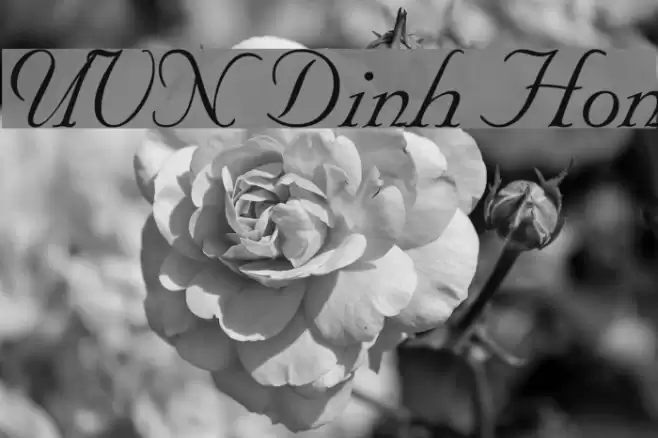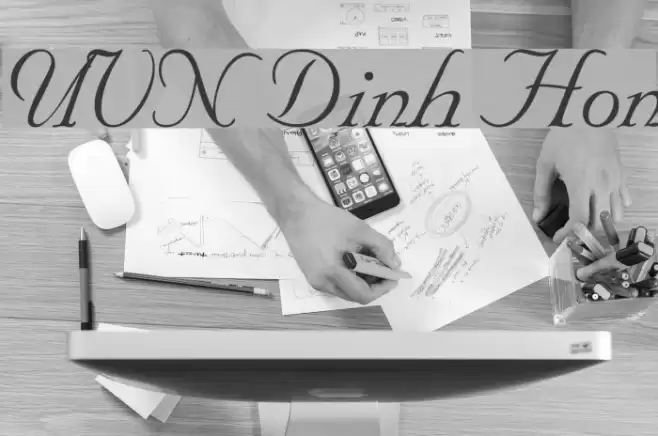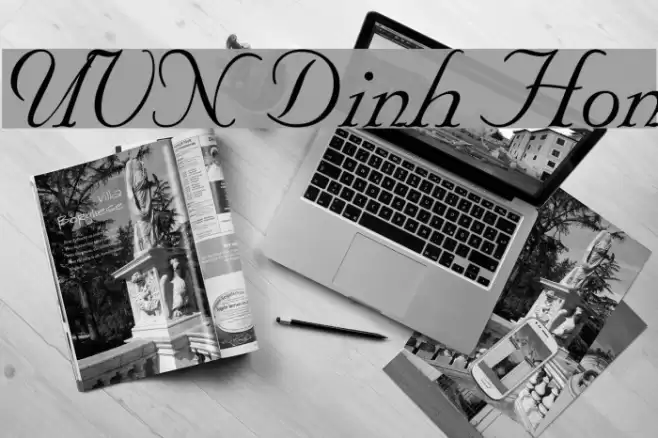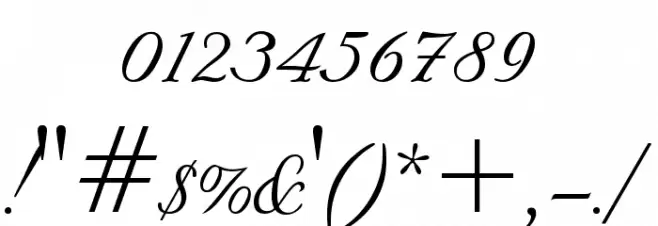
UVN Dinh Hon Font
UVN Dinh Hon Description
This font exudes elegance with its flowing, cursive style that mimics the fluidity of handwriting. The uppercase letters are characterized by sweeping curves and flourishes, giving them a sophisticated and ornate appearance. The lowercase letters maintain a consistent style, with gentle curves and a slight slant that enhances readability while preserving the decorative nature. The numerals are designed to complement the letters, featuring similar curves and a balanced weight. Special characters are thoughtfully crafted, maintaining the overall aesthetic with intricate details. The font's design is ideal for projects that require a touch of elegance and formality.
An elegant, cursive font with flowing, ornate characters from Uncategorized fonts.
- Proposed Projects: Ideal for wedding invitations, formal event programs, elegant branding, and high-end product packaging.
- Overall Style: Elegant, Decorative
- Use Case: Headlines, Invitations, Branding